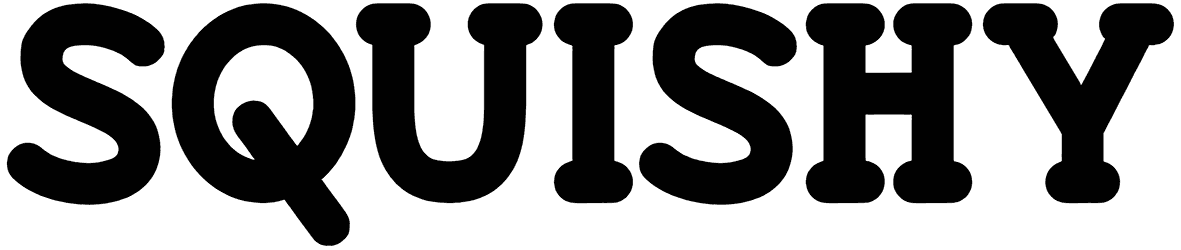
Squishy Font
With this modern font, you have a nice chance to have a modest and soft face for your intended project. The letters of the Squishy font are bold and unique, and you can count on them to attract people. Put this serif font on your novel layouts, namely a t-shirt, and convey a friendly and casual vibe to your viewers.